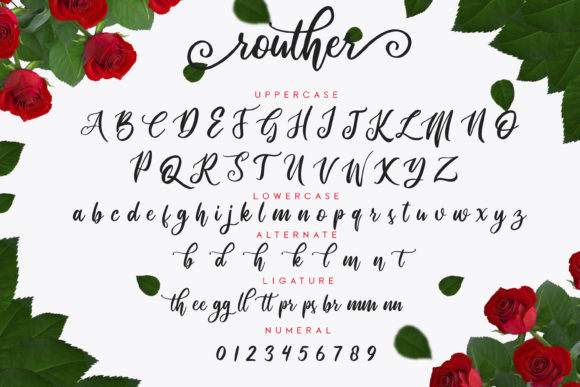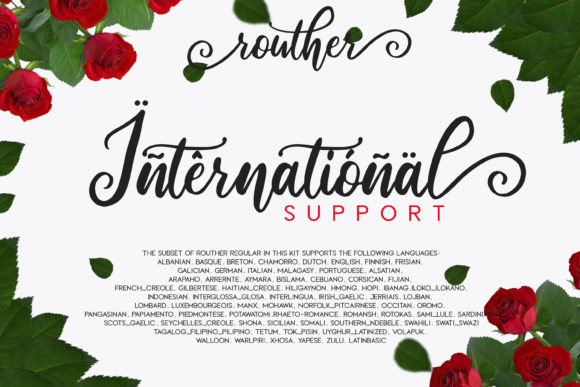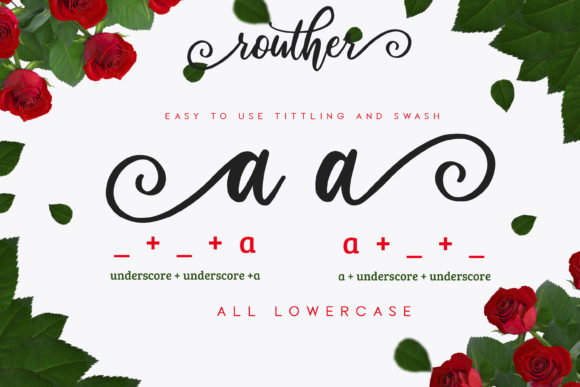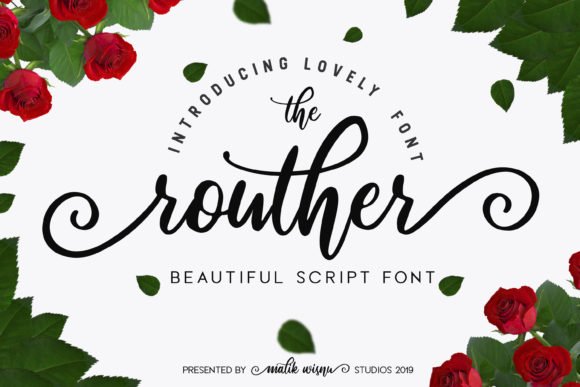
Introduction to Routher Script Font
The Routher is a beautiful script font.
It has a modern, yet elegant touch and is perfect for giving your designs a luxurious feel It’s great for logos & branding, photography, invitations, watermarks, advertisements, and every other design which needs a handwritten feel.
Key Features of Routher Script Font